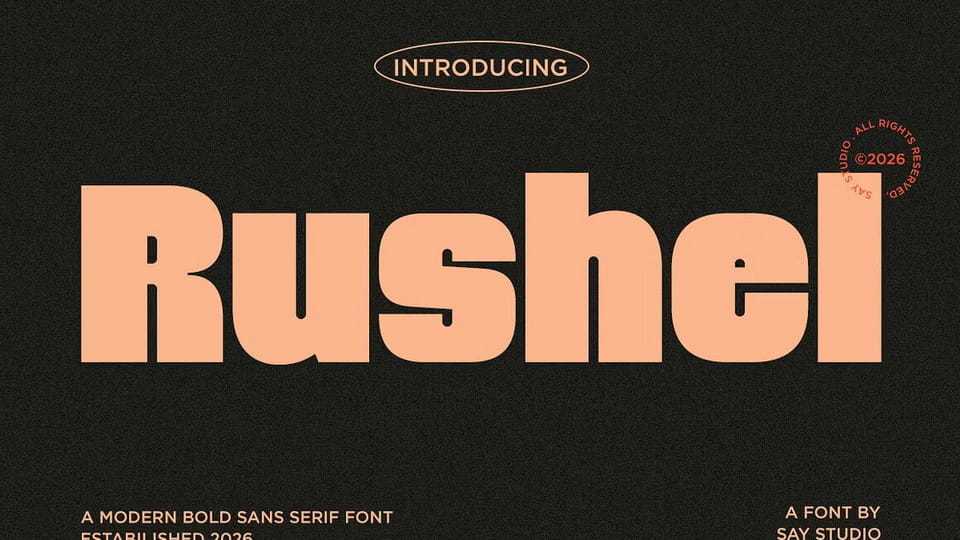
Download Rushel font, a modern bold sans serif typeface crafted for strong visual impact and contemporary branding. With its solid structure and confident proportions, it delivers a clean yet powerful presence that instantly grabs attention.
Designer: Saystudio